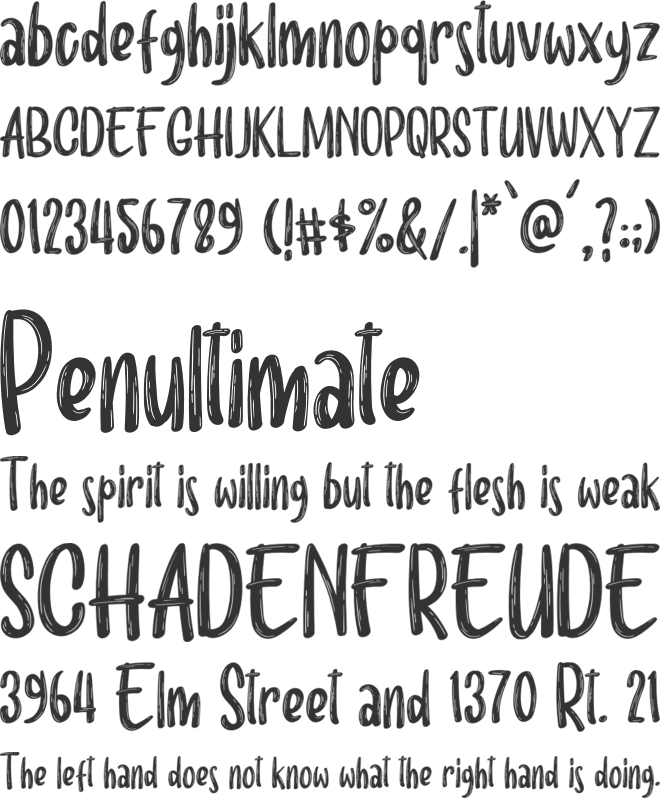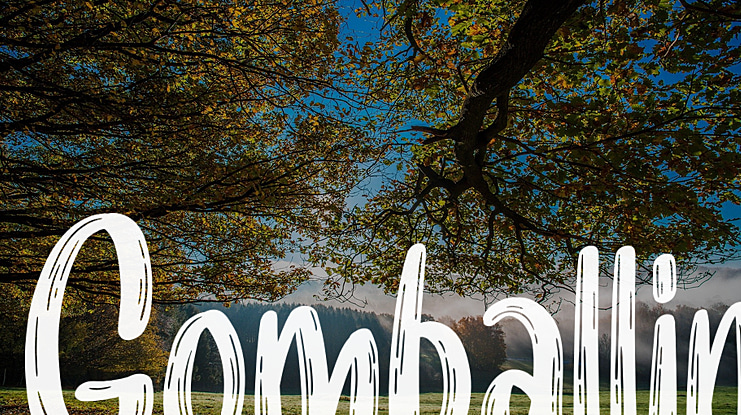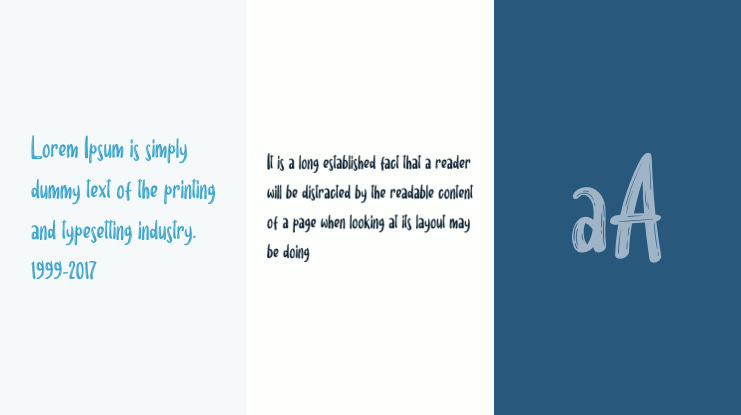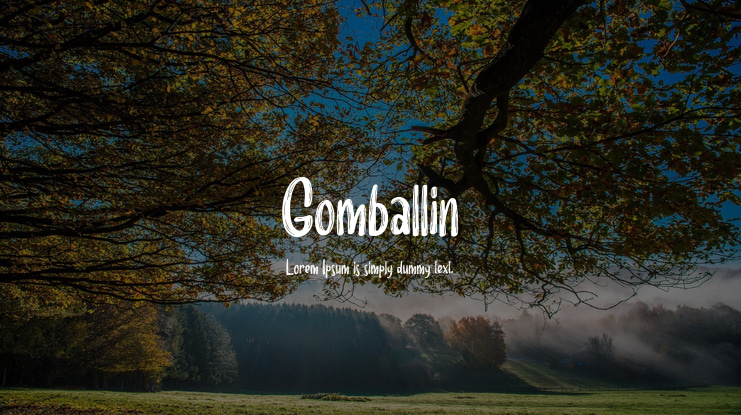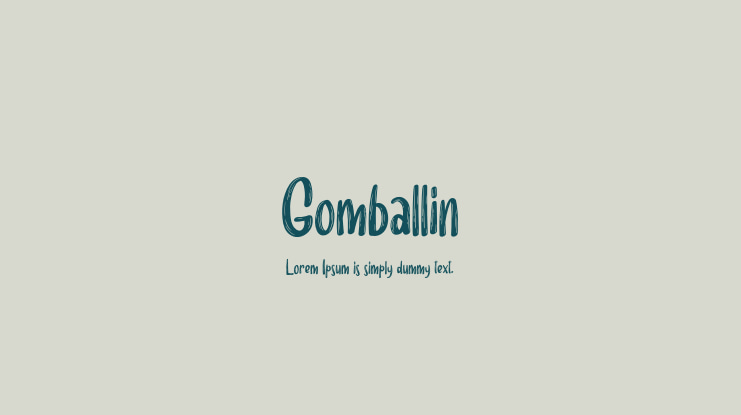
Gomballin is a playful font display. See the more trending pop designs make us inspired to provide an alternative solution to your design needs. Come to give you the ease in designing pop-themed with full of pastel colors, easily Gomballin Make your POP design look more playful.
Perfect for personal and commercial use your company logo, branding, poster, flyers, greetings, invitation, book cover, quotes, and many more.